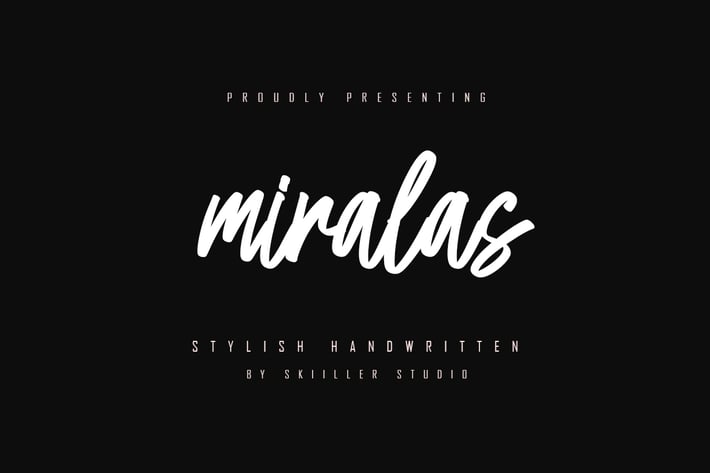
Miralas - Stylish Handwritten Font
Miralas Beauty Font This is our newest product called Miralas Beauty Font. This is a Beautiful font designed according to general needs Miralas is a very good font for logos, blogs / web headlines, clothing, invitations, posters, cafe / restaurant signs, and many others.